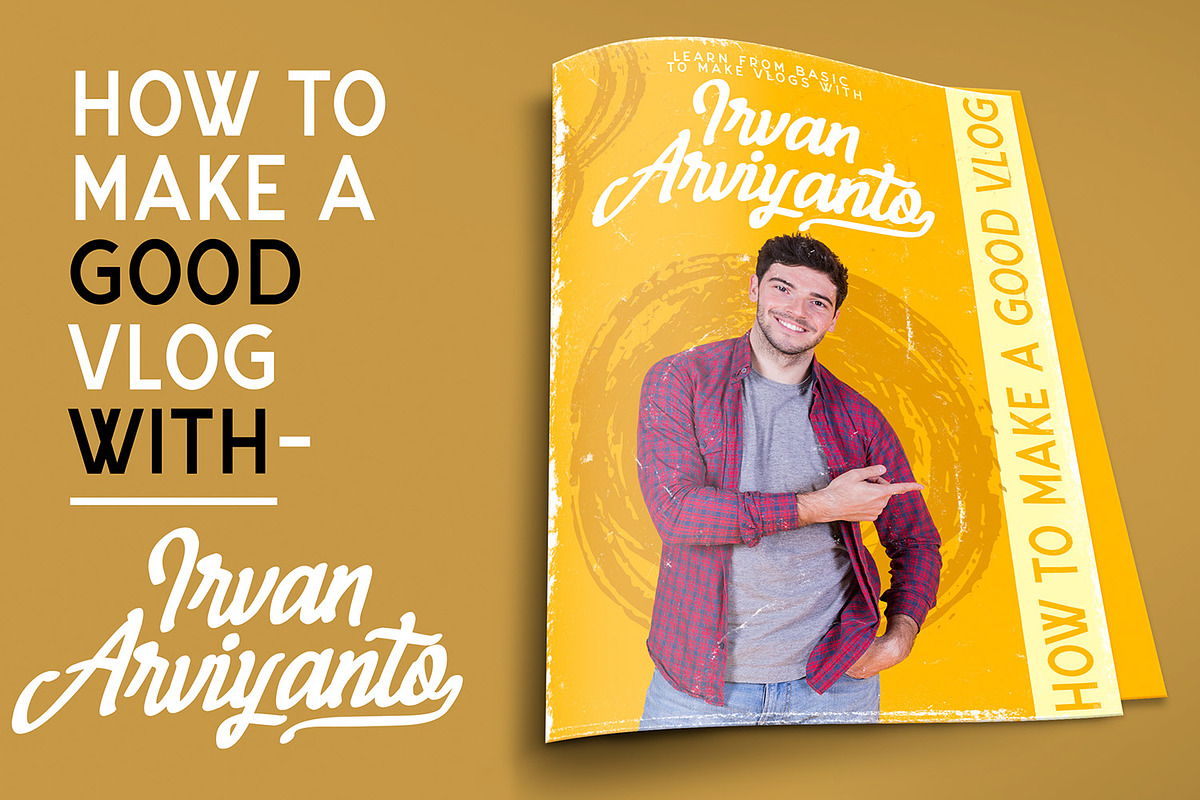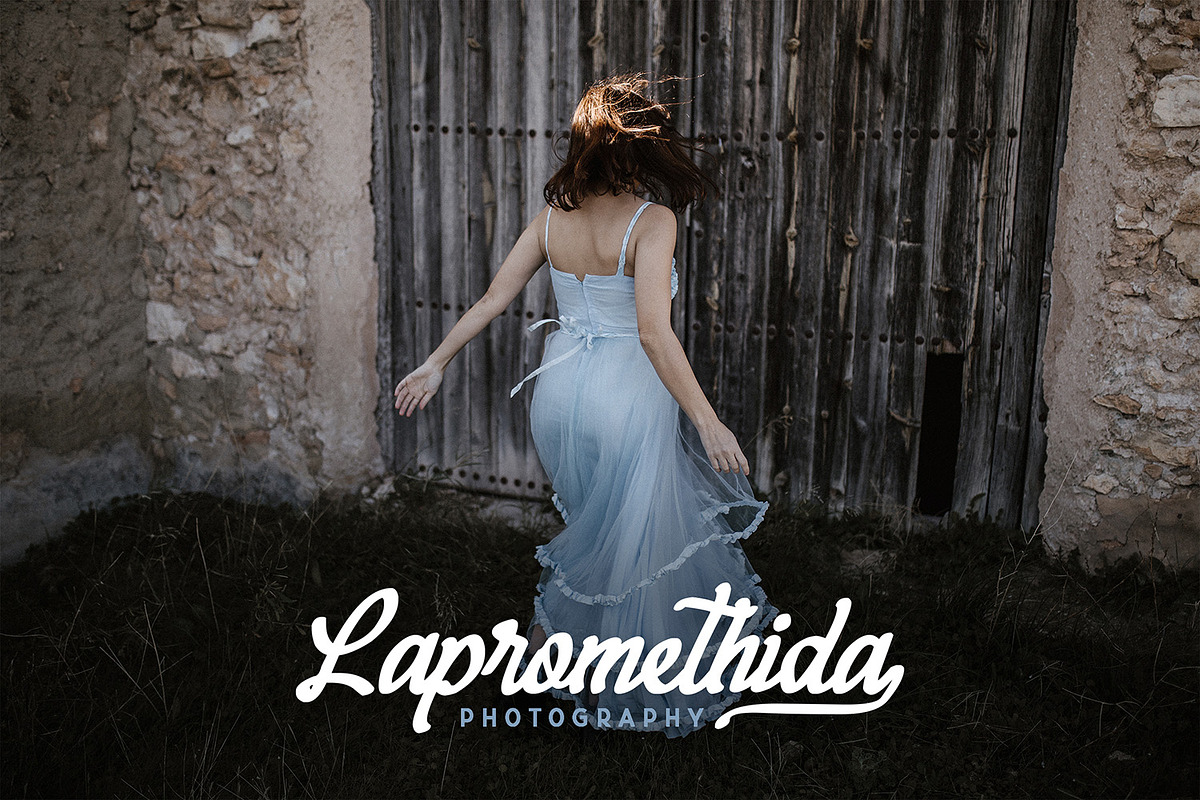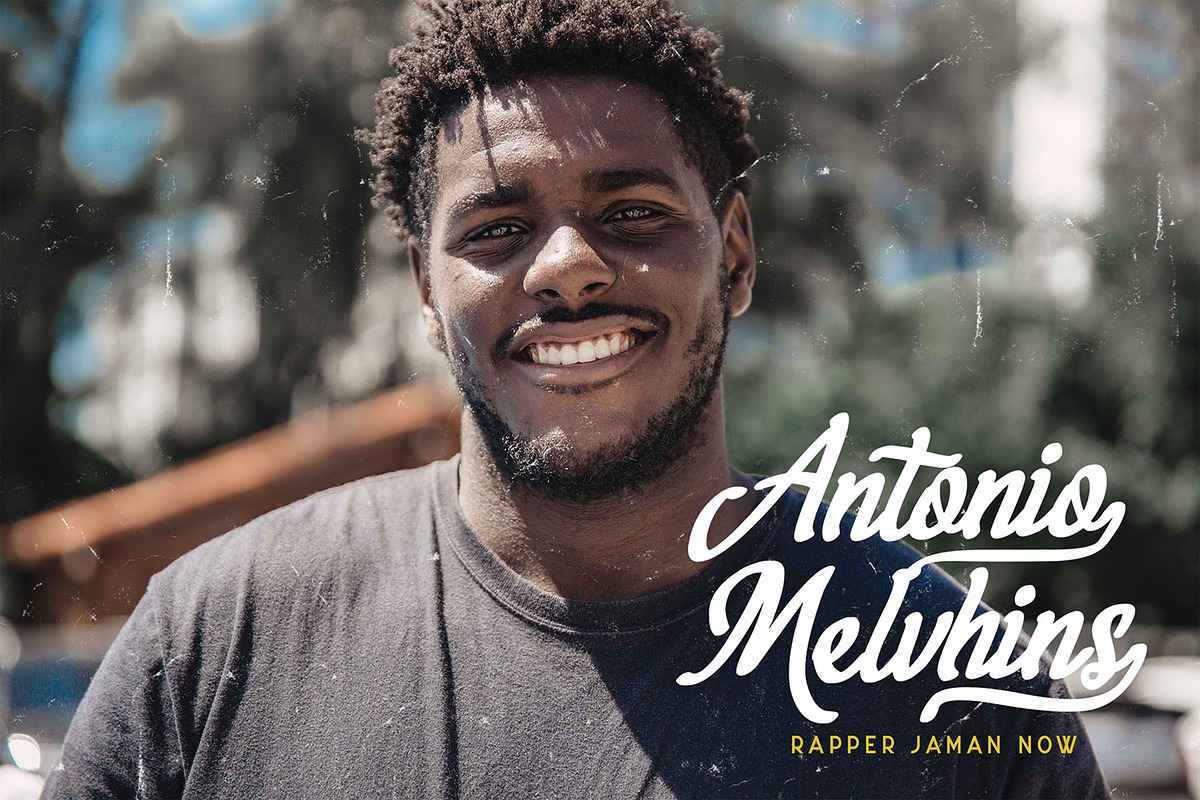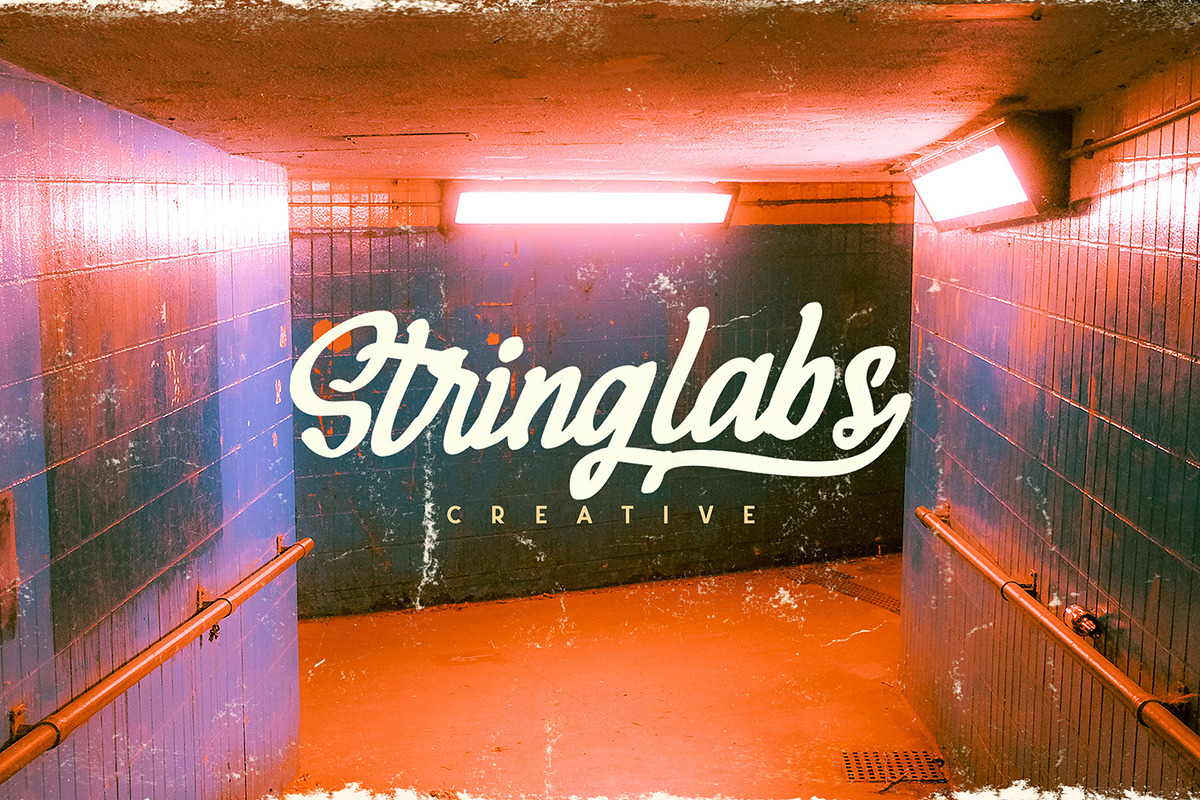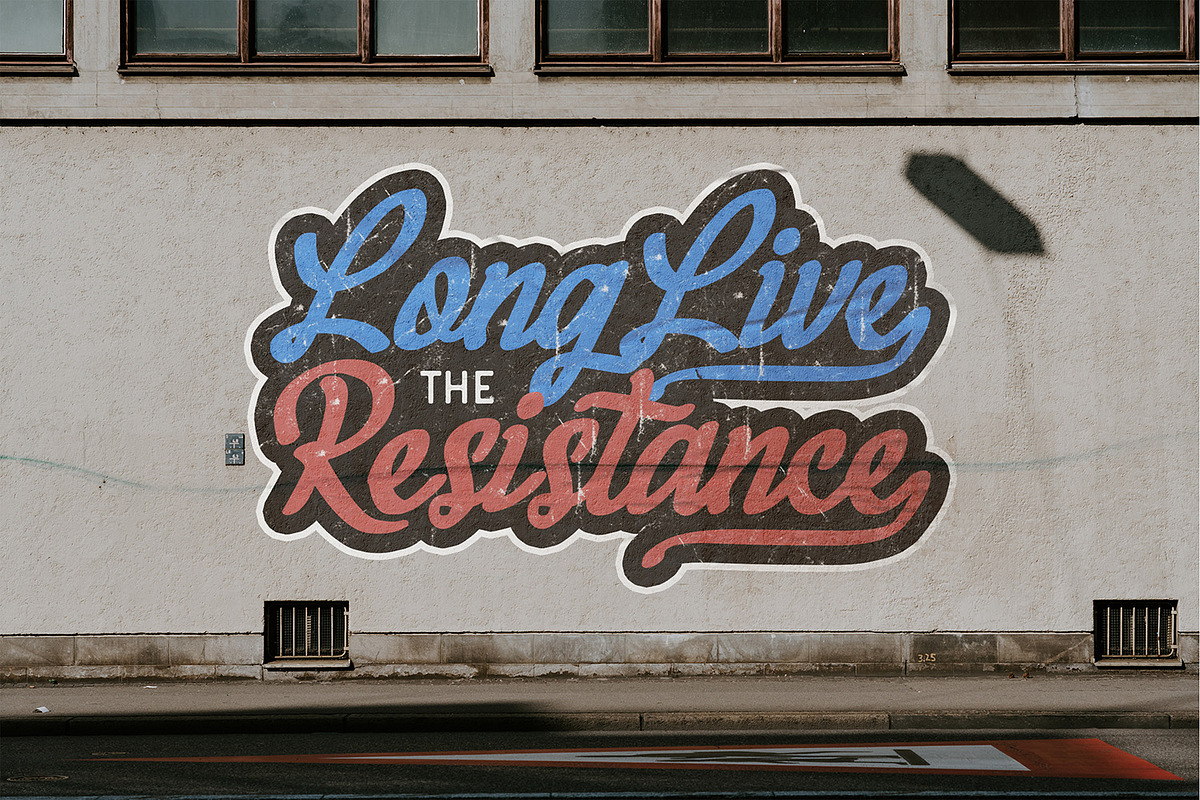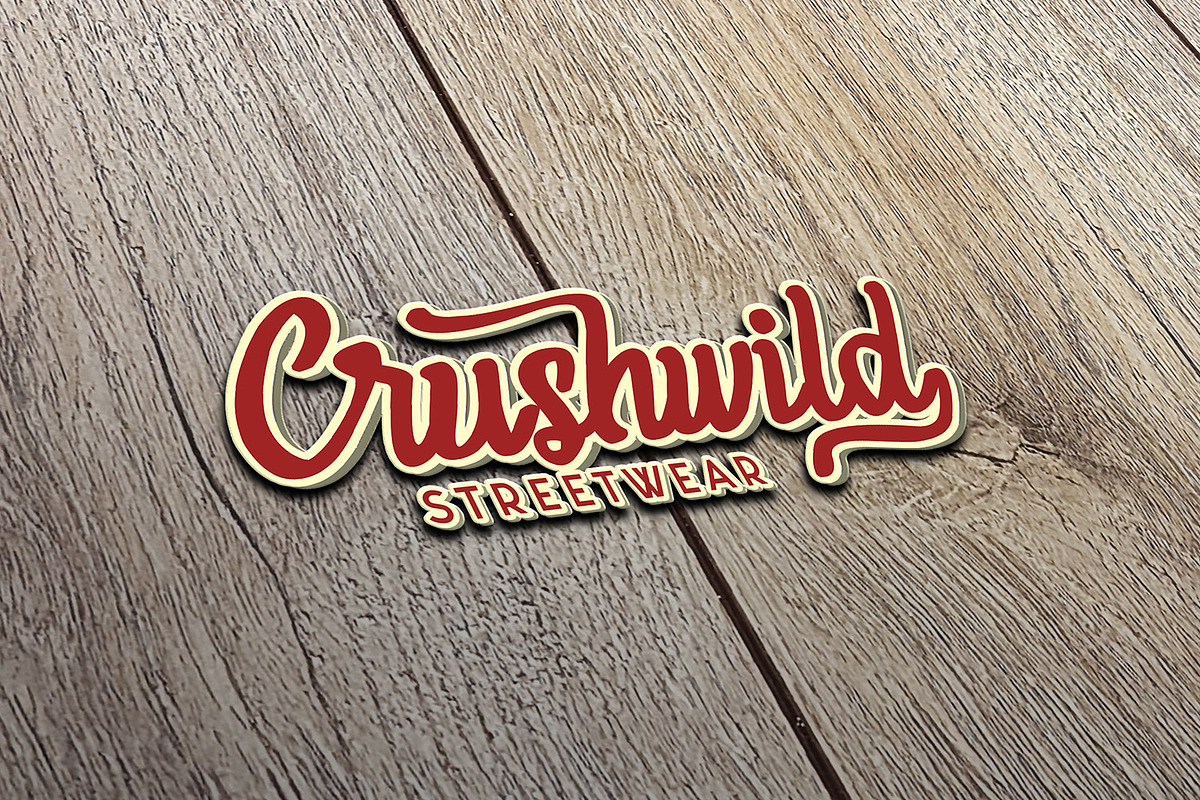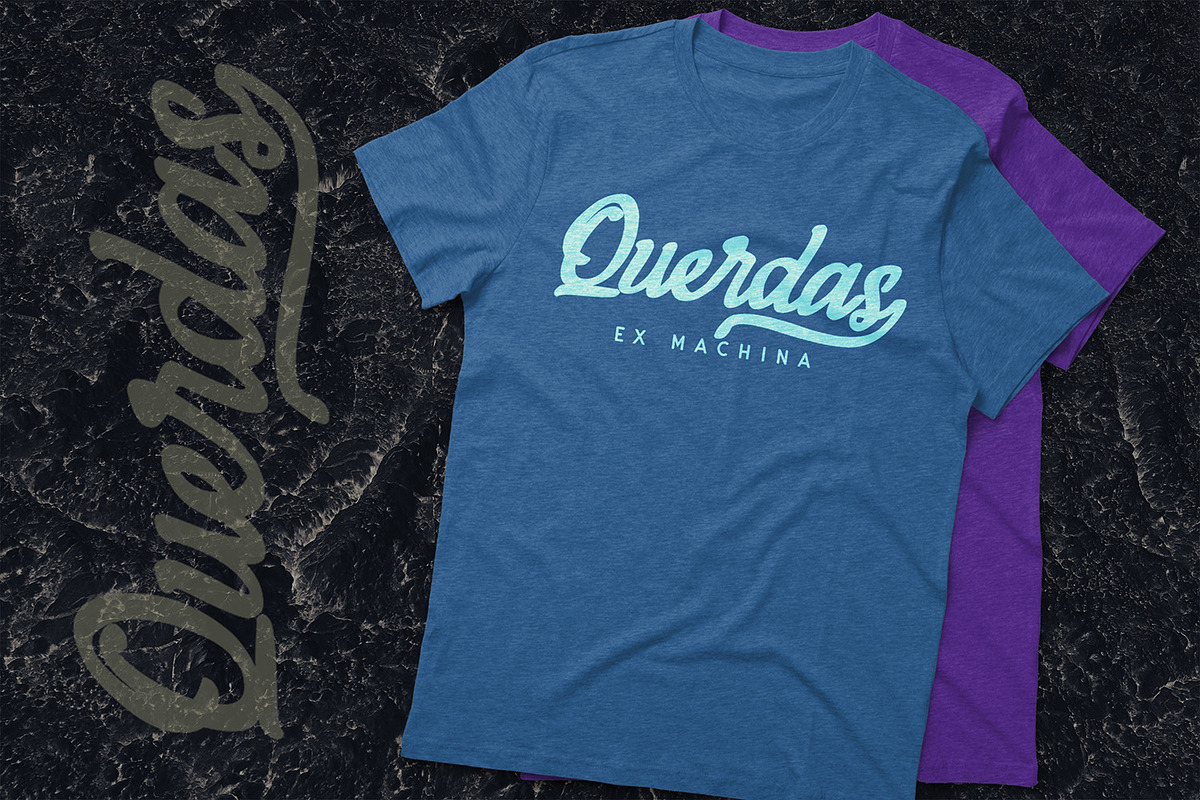
Megahunt - Brush Script Font
Introducing Megahunt - Brush Script Font
Megahunt is a Script Font with Modern Brush Style. The Megahunt font made with digital brush pen strokes that making this font look authentic. This font is perfect for fashion brand, wedding invitation, business card, logo brand, signature, and then calligraphy.
- This Font contains Classy, Elegant, Creative, Cool and has a Unique Concept.
Why Megahunt - Brush Script Font is worth a look
Megahunt - Brush Script Font by StringLabs fits naturally into Branding, posters, packaging, typography.